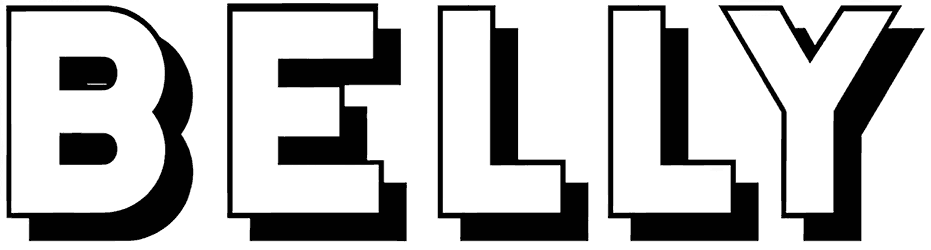
Belly Font
Belly is a basic, shadow font that can be used in a variety of contexts, including banners, posters, social media posts, and branding collateral, even though it doesn’t have any lowercase letters.